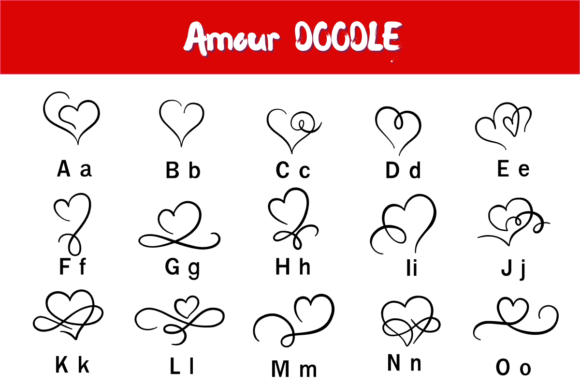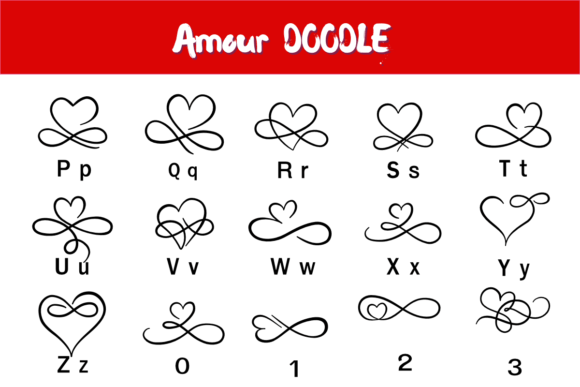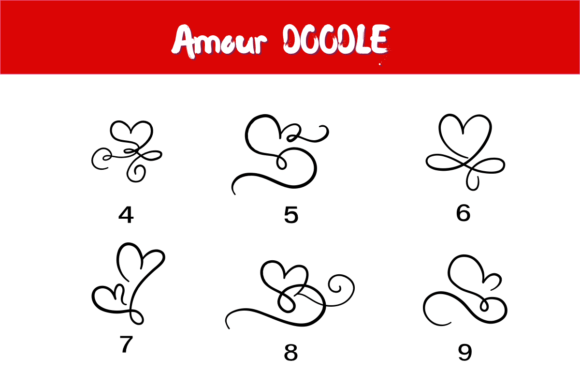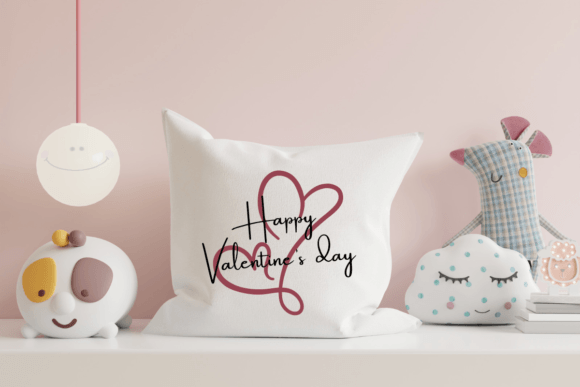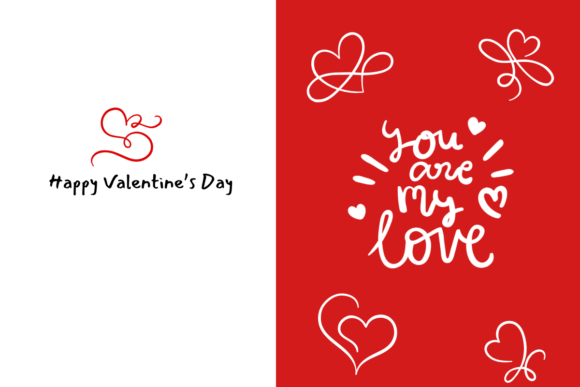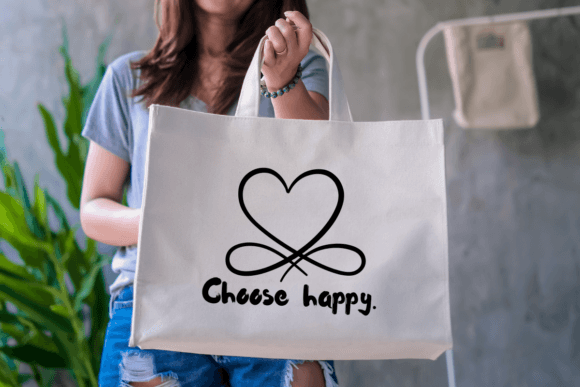
Introducing Amour Font: The Perfect Romantic Dingbats for Creative Projects
Are you a designer, crafter, or DIY enthusiast looking for a unique and romantic font to elevate your creative projects? Look no further than Amour Font, a charming dingbats font that is sure to capture the hearts of those who see it. In this article, we’ll dive into the world of Amour Font, exploring its features, uses, and benefits, and provide you with inspiration and ideas for incorporating it into your work.
What is Amour Font?
Amour Font is a romantic dingbats font designed to add a touch of elegance and whimsy to your creative projects. The font features a range of beautiful and intricate designs, including hearts, flowers, and other romantic motifs, making it perfect for projects that require a personal and sentimental touch.
Features of Amour Font
- Unique and Romantic Designs: Amour Font features a range of unique and romantic designs that are sure to add a touch of elegance and sophistication to your projects.
- Dingbats Font: As a dingbats font, Amour Font features a range of graphical symbols and motifs, rather than traditional letterforms, making it perfect for adding visual interest to your projects.
- Scalable and Versatile: Amour Font is highly scalable and versatile, making it suitable for use in a wide range of creative projects, from wedding invitations and DIY crafts to logos and decorations.
Uses of Amour Font
Amour Font is a versatile font that can be used in a wide range of creative projects, including:
- Wedding Invitations: Add a touch of romance and elegance to your wedding invitations with Amour Font’s beautiful and intricate designs.
- DIY Crafts: Use Amour Font to add a personal touch to your DIY crafts, such as handmade cards, gift tags, and decorations.
- Logos and Branding: Amour Font’s unique and romantic designs make it perfect for use in logos and branding for businesses that require a touch of elegance and sophistication.
- Decorations: Use Amour Font to create beautiful and unique decorations, such as wall art, garlands, and other home decor items.
Benefits of Using Amour Font
Using Amour Font in your creative projects offers a range of benefits, including:
- Unique and Eye-Catching Designs: Amour Font’s unique and romantic designs are sure to capture the attention of those who see them, making your projects stand out from the crowd.
- Time-Saving: With Amour Font, you can quickly and easily add beautiful and intricate designs to your projects, saving you time and effort.
- Customizable: Amour Font is highly customizable, allowing you to adjust the size, color, and style to suit your project’s needs.
Tips and Inspiration for Using Amour Font
Here are a few tips and ideas to get you started with using Amour Font in your creative projects:
- Mix and Match: Experiment with mixing and matching different Amour Font designs to create unique and eye-catching combinations.
- Add a Personal Touch: Use Amour Font to add a personal touch to your projects, such as a custom monogram or special message.
- Combine with Other Fonts: Combine Amour Font with other fonts to create a unique and visually interesting design.
Amour Font is a beautiful and romantic dingbats font that is perfect for designers, crafters, and DIY enthusiasts looking to add a touch of elegance and whimsy to their creative projects. With its unique and intricate designs, Amour Font is sure to capture the hearts of those who see it. Whether you’re creating wedding invitations, DIY crafts, logos, or decorations, Amour Font is a versatile and customizable font that is sure to inspire and delight.